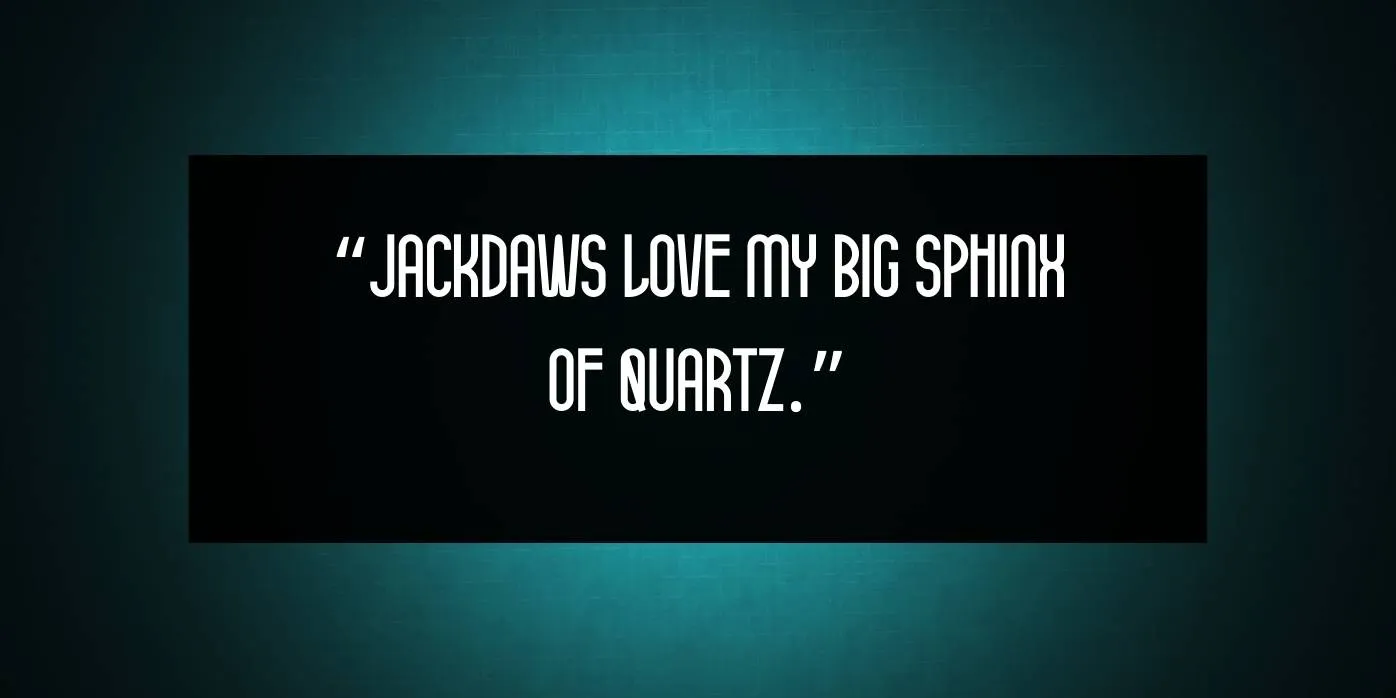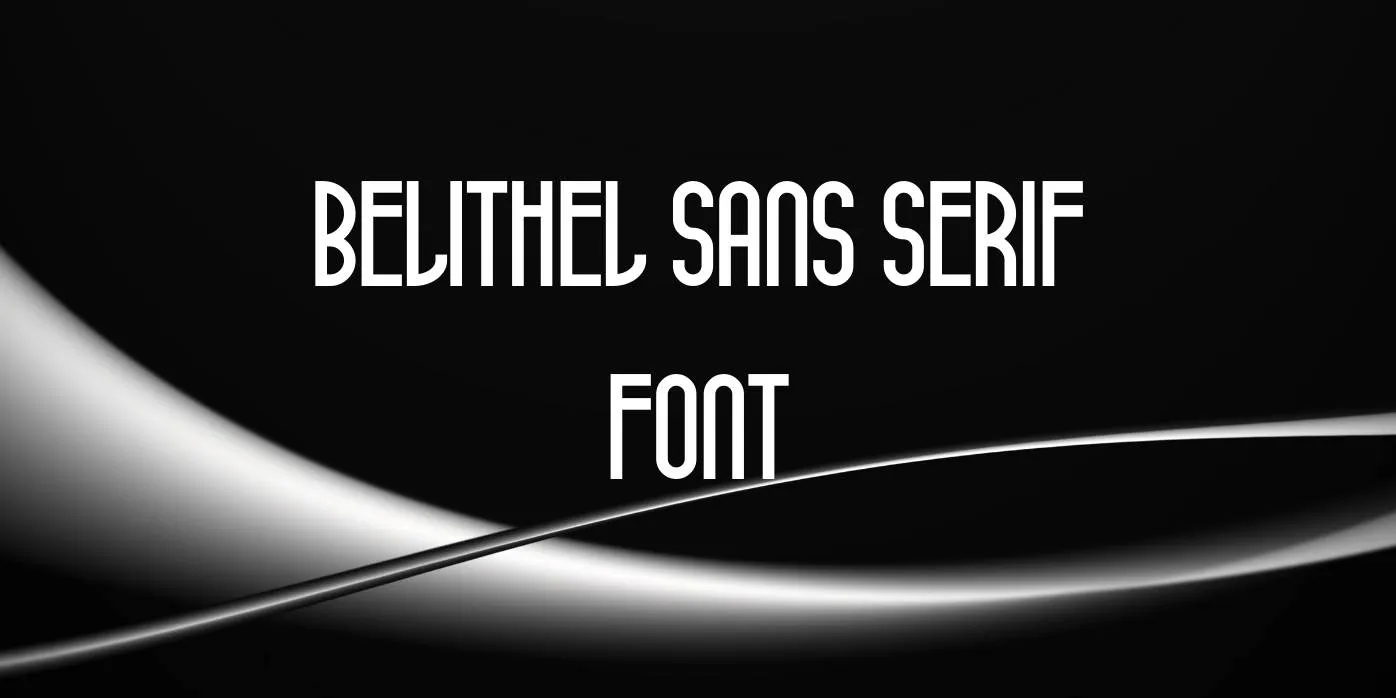
Belithel Sans Serif Font
Belithel Sans Serif Font is a font that was created by Belithel. It is a sans serif font, which means that it does not have the decorative elements that are often found in serif fonts. The font was designed to be used for body text, and it is available in both regular and bold weights. Belithel Sans Serif Font is a versatile font that can be used for a variety of purposes, including body text, headlines, and even titles.
This font glyph has been created with great attention to the overall aesthetic harmony. The letters have been designed to work well together, and the font includes a variety of different weights and styles that can be used to create a variety of different looks. This font is not currently present in both adobe or google font stores. You can mix the typeface with others and can be used as a pairing with letter press font a basic sans serif category font you can download free from our web portal.